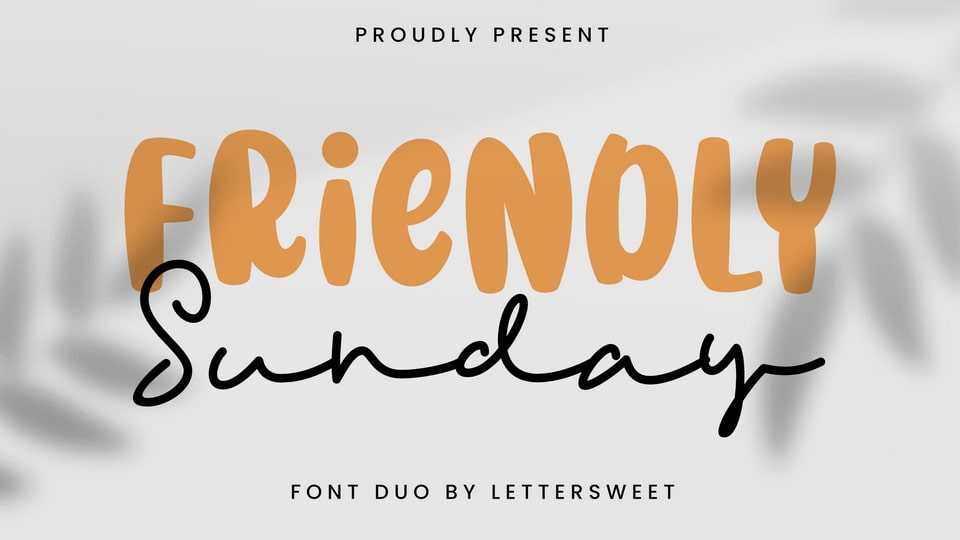
Download Friendly Sunday font, a delicate, elegant hand lettered font. It has beautiful and well-balanced characters and as a result, it matches a wide pool of designs.